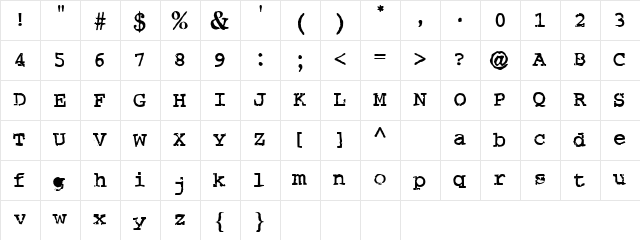
Crud Regular
Design Context for Crud Typeface
Crud takes a measured approach to typography — its balanced proportions and neutral character make it a reliable workhorse for both digital and print work.